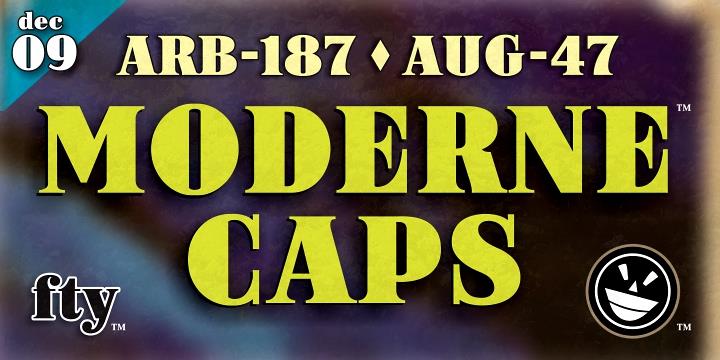
Free ARB-187 Moderne Caps AUG-47 CAS Font
Download and enjoy this free arb-187 moderne caps aug-47 cas font. Cool typeface to showcase your designs in a modern way. This free typeface file was found from the amazing source called Font Space. Easily amaze your audience with this fancy font and make your graphic designs pop up from the crowd.